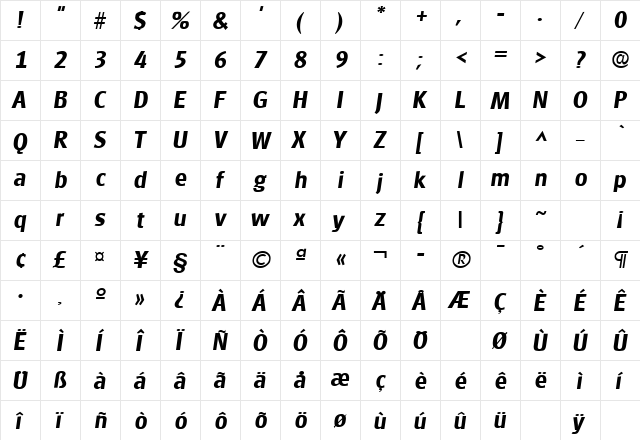
Glasgow Bold Italic
Design Context for Glasgow Typeface
Glasgow is a composed and adaptable typeface that performs quietly and consistently across a wide range of design contexts. Its italic angle brings a sense of urgency and motion to the letterforms. The heavy weight commands attention and anchors typographic hierarchies.
Pro Tip: Try Glasgow for annotation and caption copy alongside an upright companion — the contrast in angle creates a dynamic but ordered typographic system.